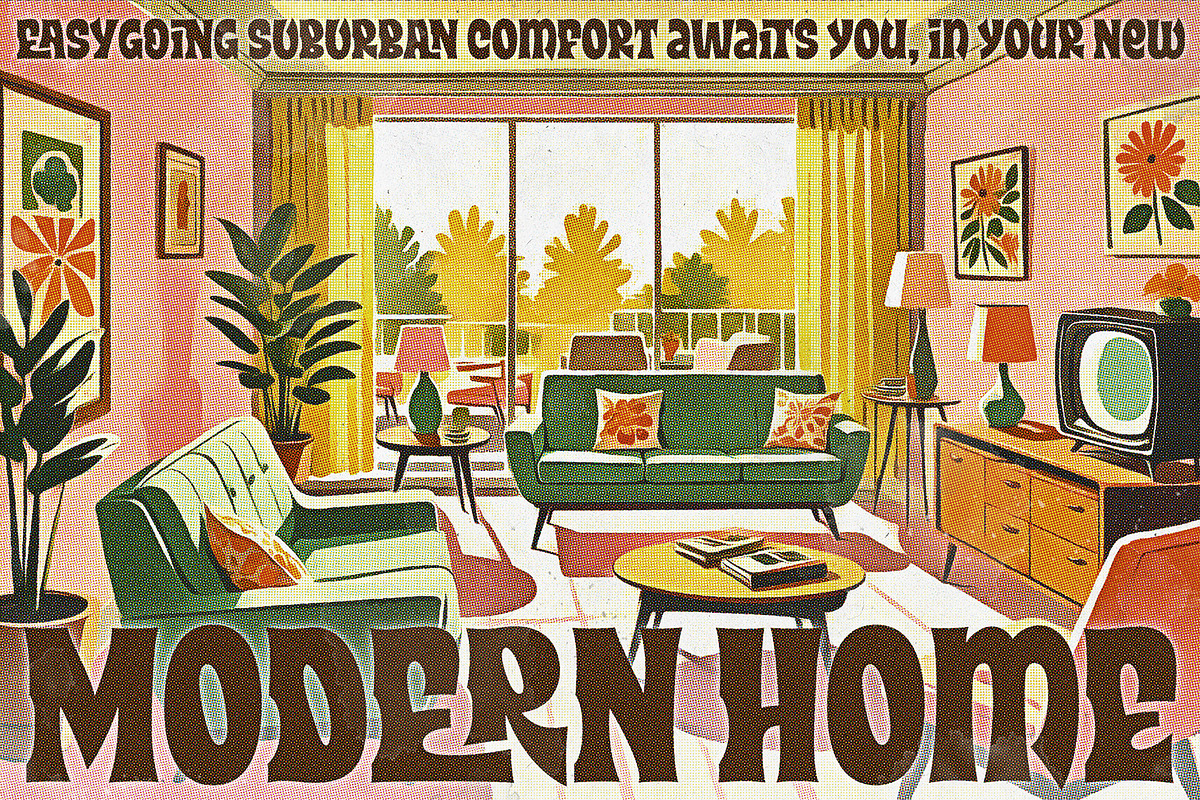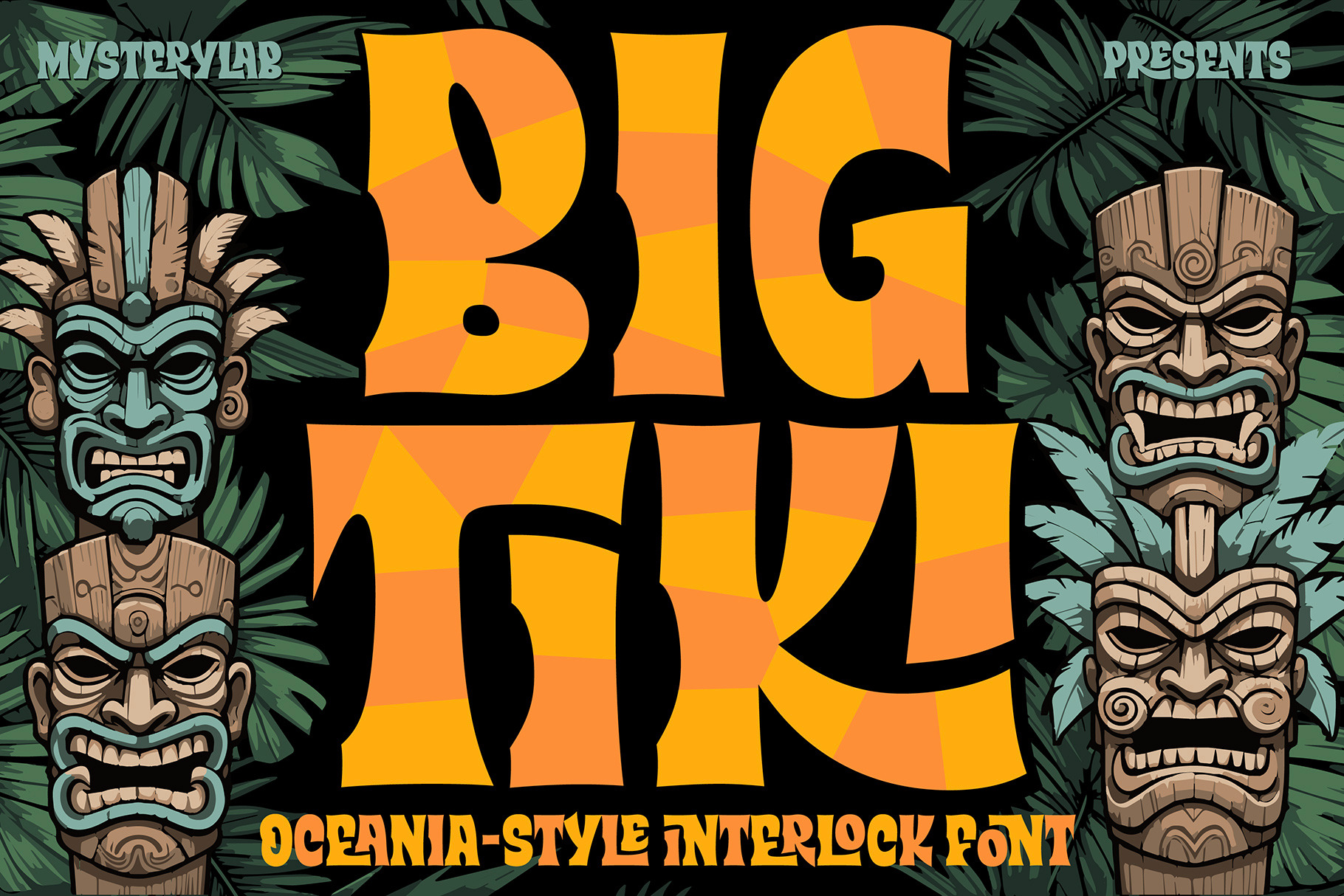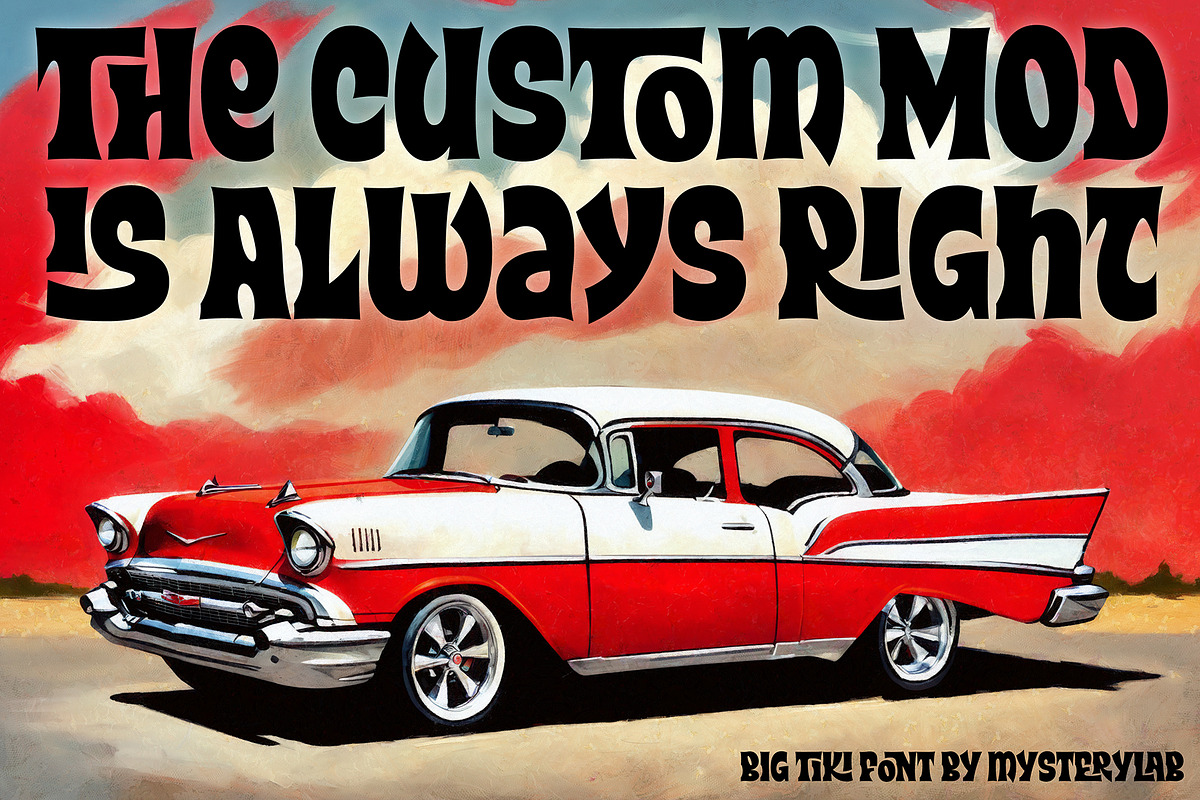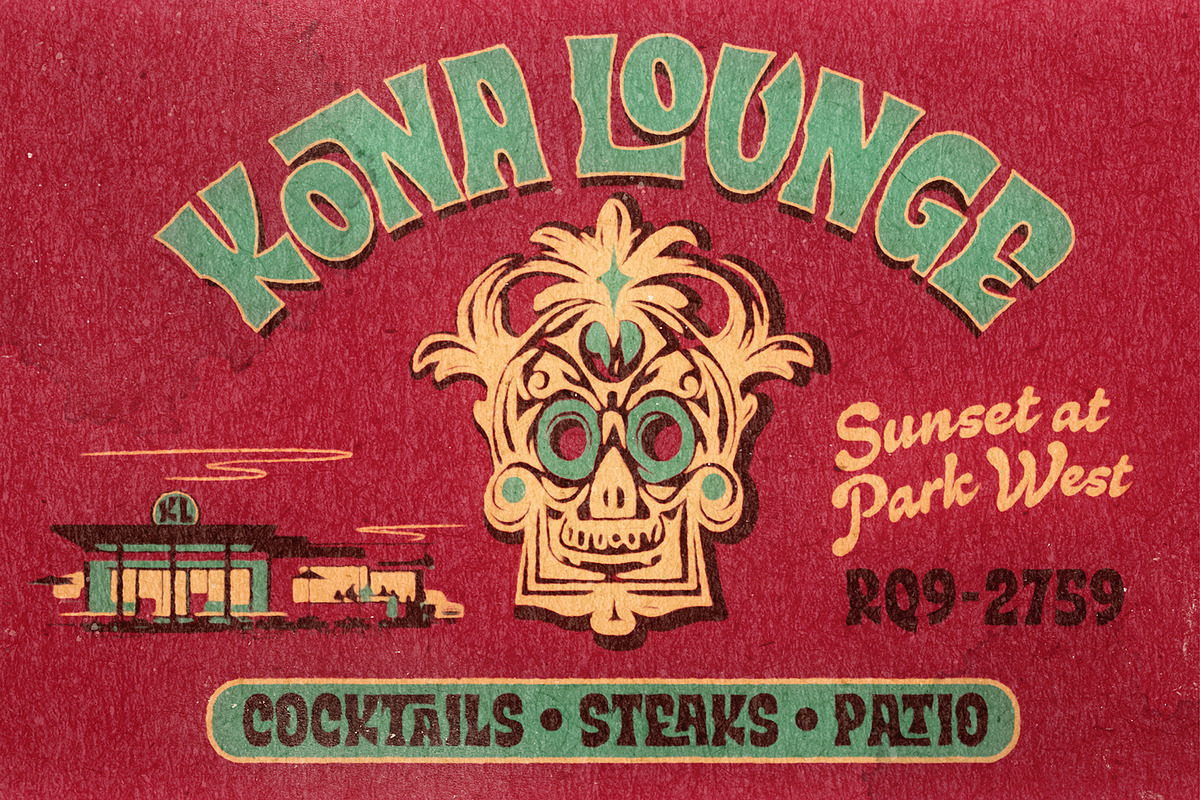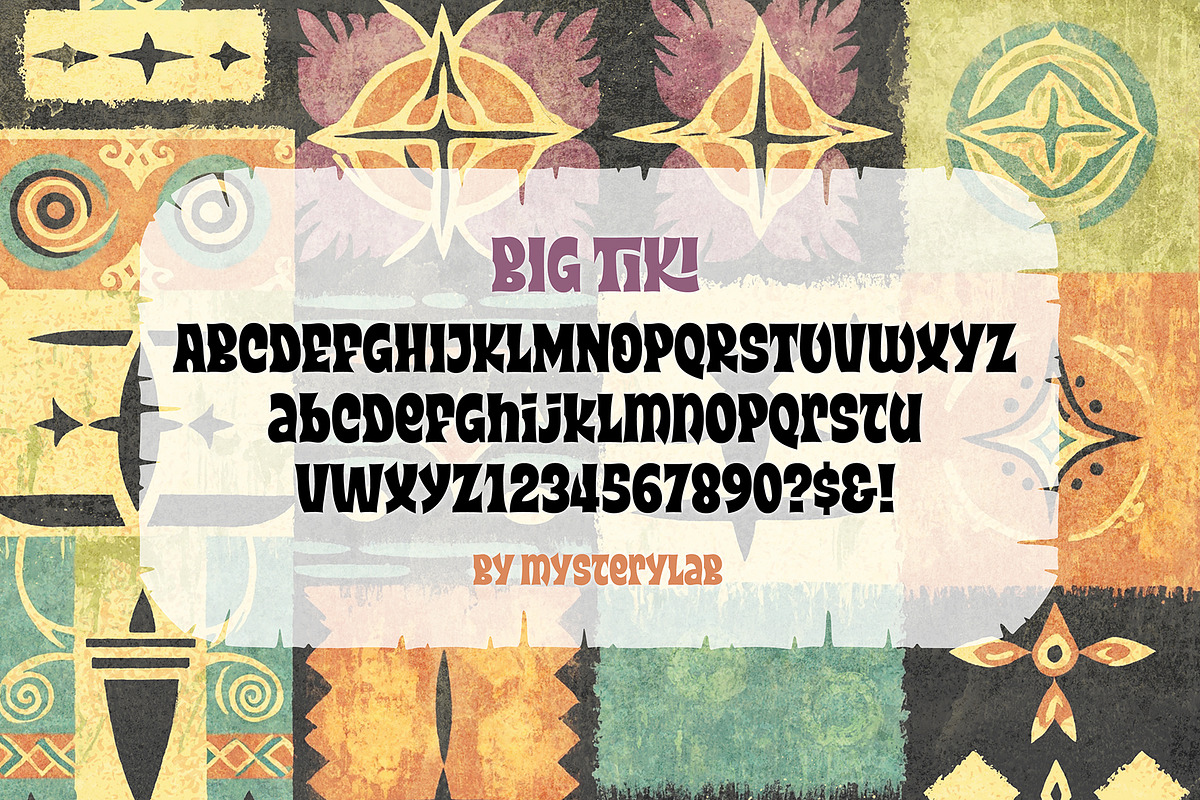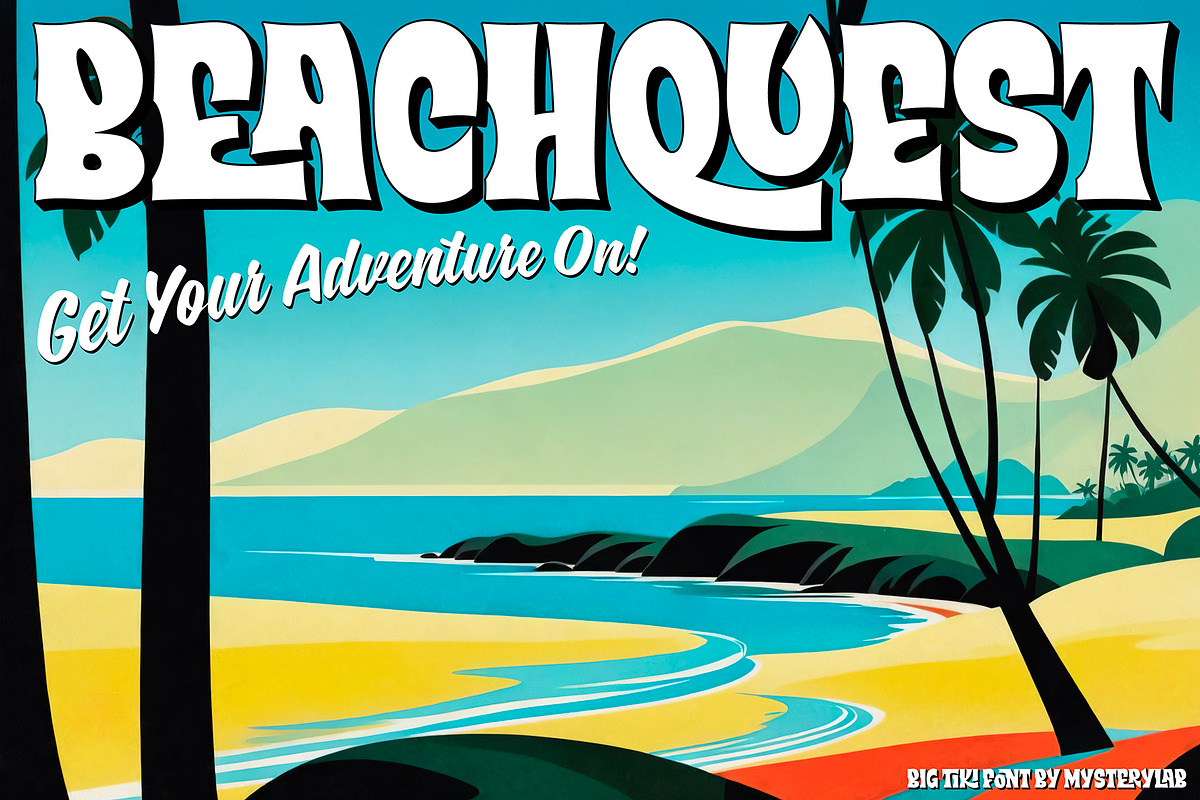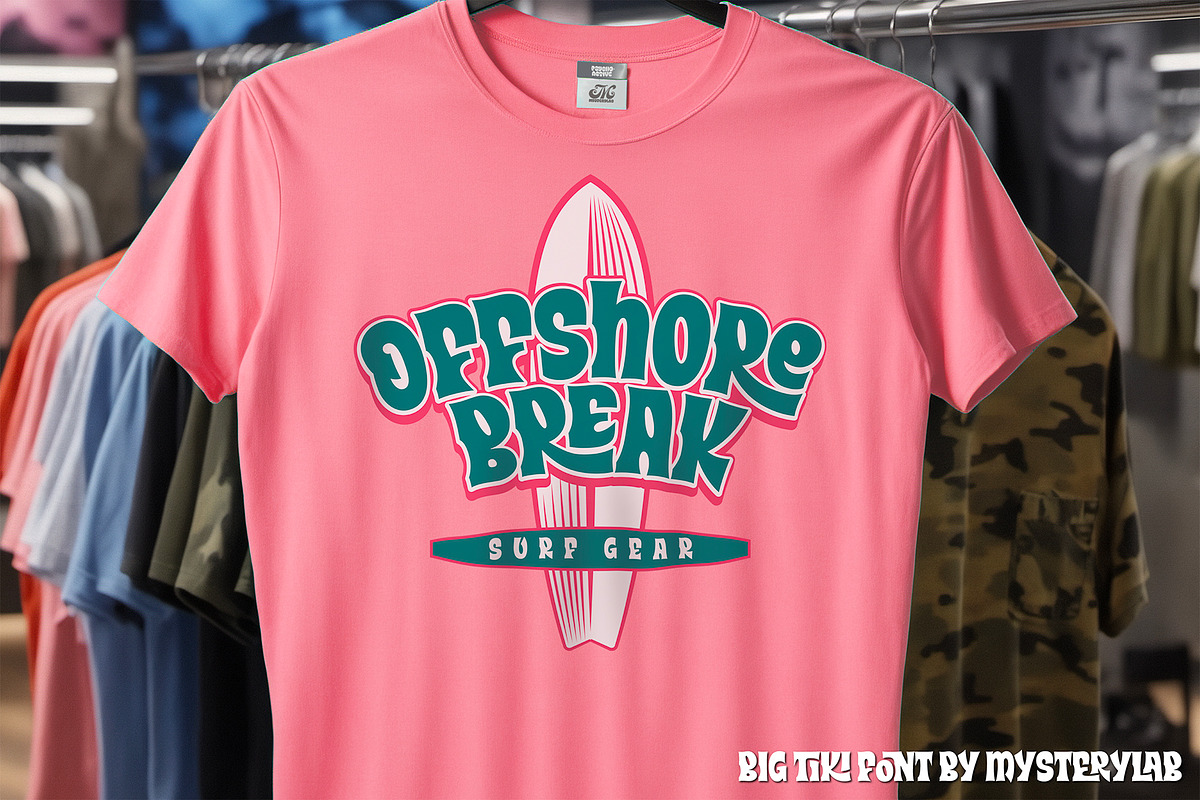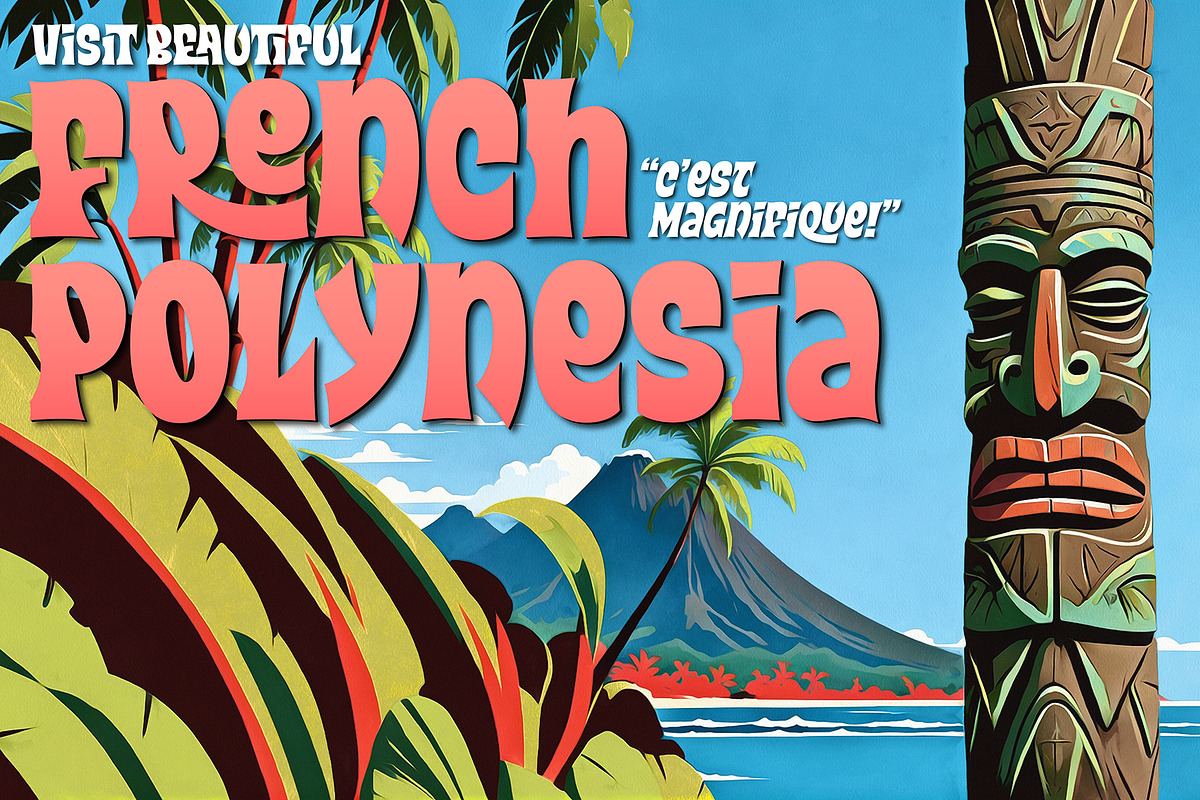
Big Tiki Font
Big Tiki is an ode to the aesthetics of Oceania and the South Pacific. This interlock-style font is perfect for a wide range of looks including surfing, skateboarding, luaus and tiki-themed parties, beachwear, lounge style art, 1960s TV shows, cartoons, comics, and anything that needs a whiff of pineapples, coconuts, Mai Tais, and irreverence.